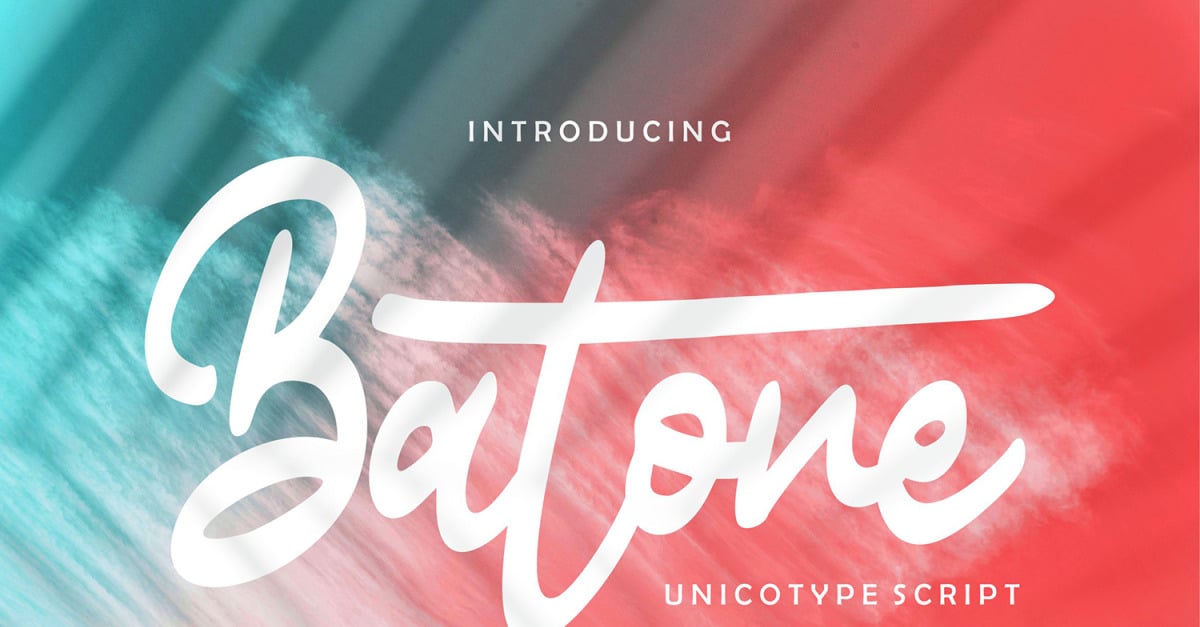
Batone | Unicotype Cursive Font
**Batone | Unicotype Script Font** with a calligraphy style, So beautiful on invitation like greeting cards, branding materials, business cards, quotes, posters, and more!